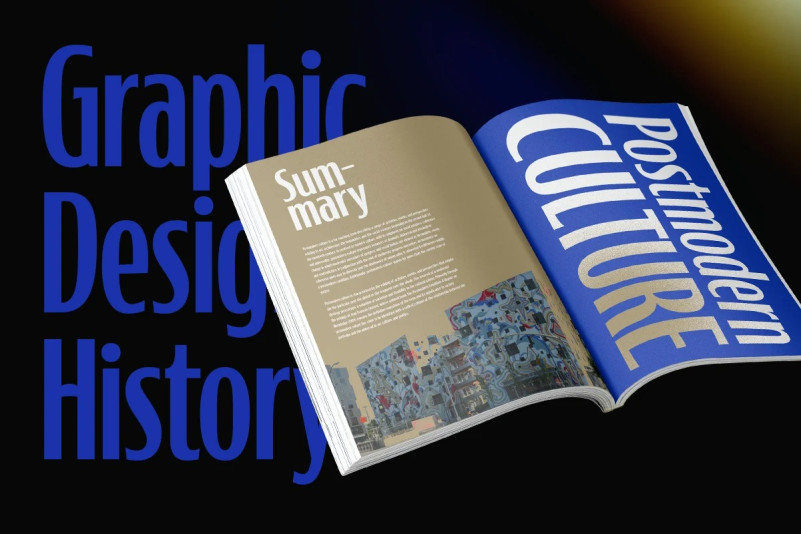
Banerton Font
Introducing Banerton Sans Serif Font , the condensed sans serif font that combines a clean, modern aesthetic with a casual vibes. Its minimalistic design and semi bold lettering make it perfect for everything from labels, logos, magazines, books, greeting / wedding cards, packaging, fashion, make up, stationery, novels, labels or any type of advertising purpose.